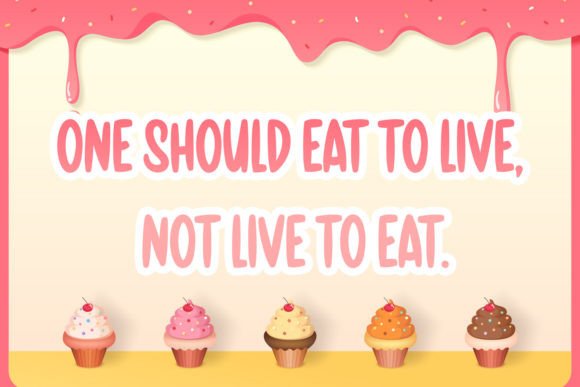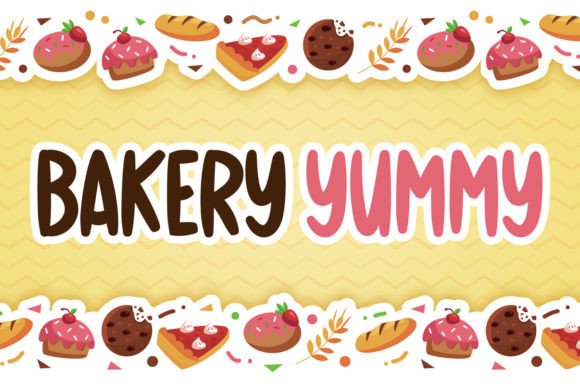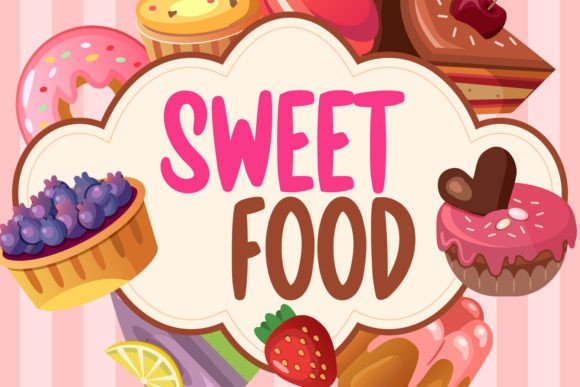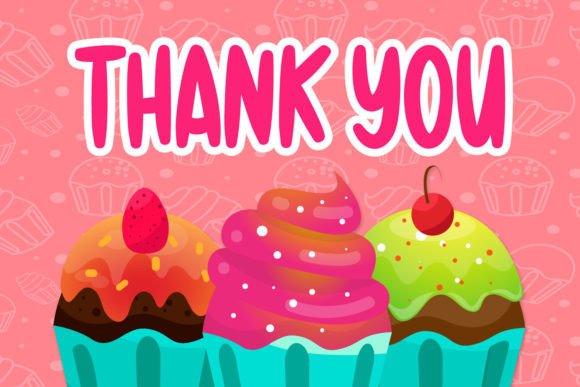
The Sweetest Font: A Deep Dive into Cupcake Font
I’ll never forget the time I was working on a children’s party invitation design. I had the perfect concept, the colors were poppy and fun, but something was missing – the right font. I scrolled through font after font, but none seemed quite right. That was until I stumbled upon Cupcake Font. It was love at first sight! The playful, bubbly letters seemed to scream “fun” and “celebration.” I knew right then and there that it was the perfect fit for my design.
An Honest Review of Cupcake Font
- ✨ The whimsical and playful design makes it perfect for children’s themed designs.
- ✅ It’s incredibly versatile and can be used for titles, headings, and even short paragraphs.
- 💕 The font comes in a range of weights, making it easy to use for both bold statements and subtle text.
- 🎉 It’s perfect for combining with bright colors to create a fun and lively design.
While Cupcake Font is an amazing font, it’s not without its quirks. For example:
- 🤔 The font can be a bit tricky to read in large blocks of text, so it’s best used for headings and titles.
- ⚠️ Some of the letters have a slightly irregular shape, which can make it difficult to use for more formal designs.
The Backstory of Cupcake Font
Cupcake Font was designed by a talented font designer who wanted to create a font that embodied the playfulness and authenticity of childhood. The designer drew inspiration from classic children’s fonts, as well as their own childhood memories of baking and decorating cupcakes. The result is a font that’s both fun and elegant, perfect for designs that need a touch of whimsy.
| What is Cupcake Font best used for? | Cupcake Font is best used for children’s themed designs, such as party invitations, children’s books, and educational materials. |